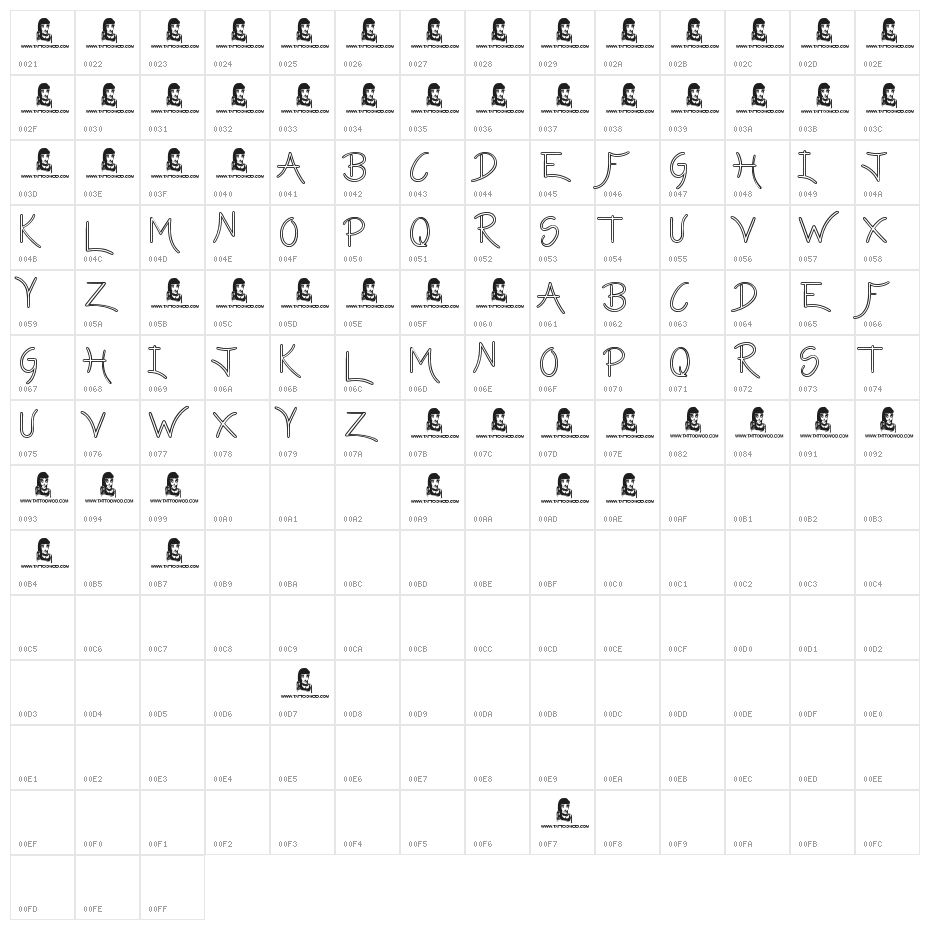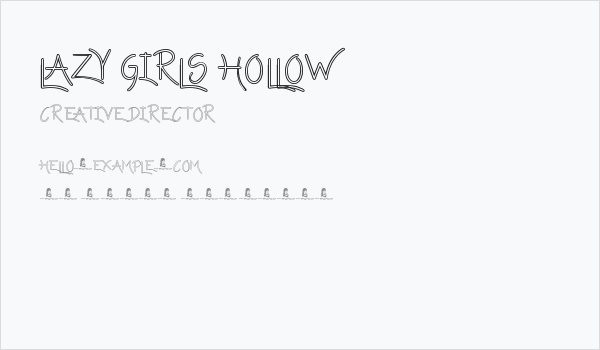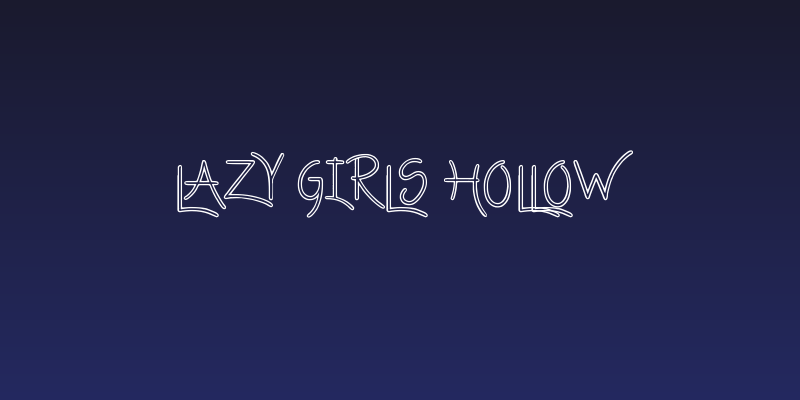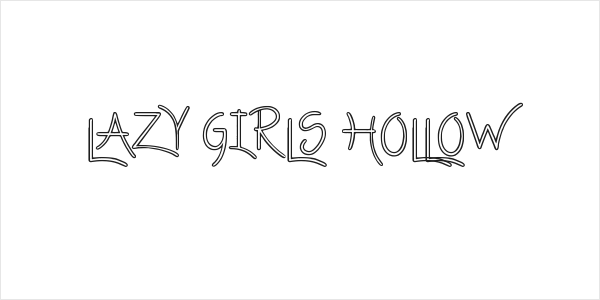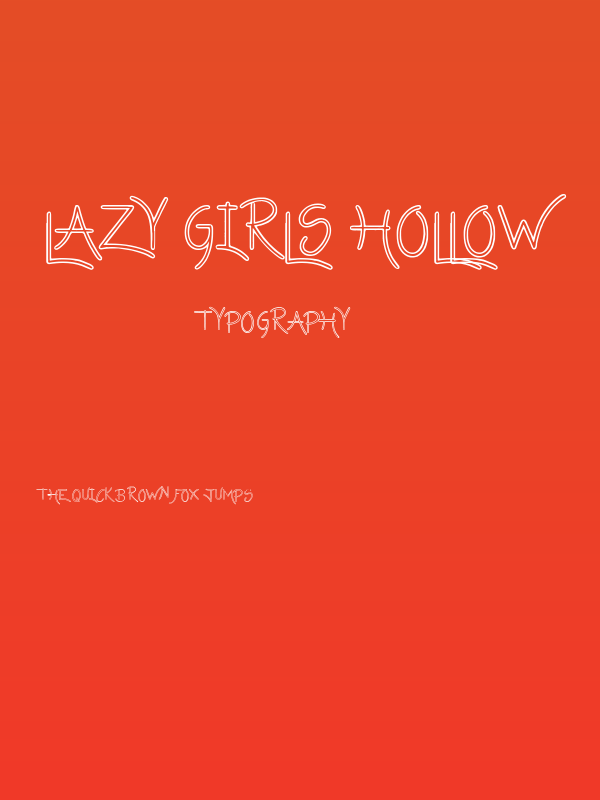
Lazy Girls hollow Font
Lazy Girls hollow Description
This font features a unique hollow design with a playful and artistic flair. The letters are outlined with a consistent stroke, giving them a light and airy appearance. The uppercase letters are bold and expressive, with a slight slant that adds a dynamic feel. The font maintains a whimsical and casual style, making it suitable for creative projects. The characters have a moderate spacing, ensuring readability while maintaining their decorative nature. This font is perfect for projects that require a touch of creativity and fun, such as posters, invitations, or branding materials.
| Proposed Projects | Ideal for creative projects like posters, invitations, or branding materials. |